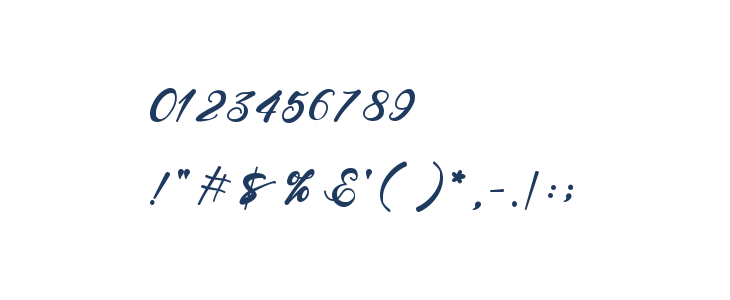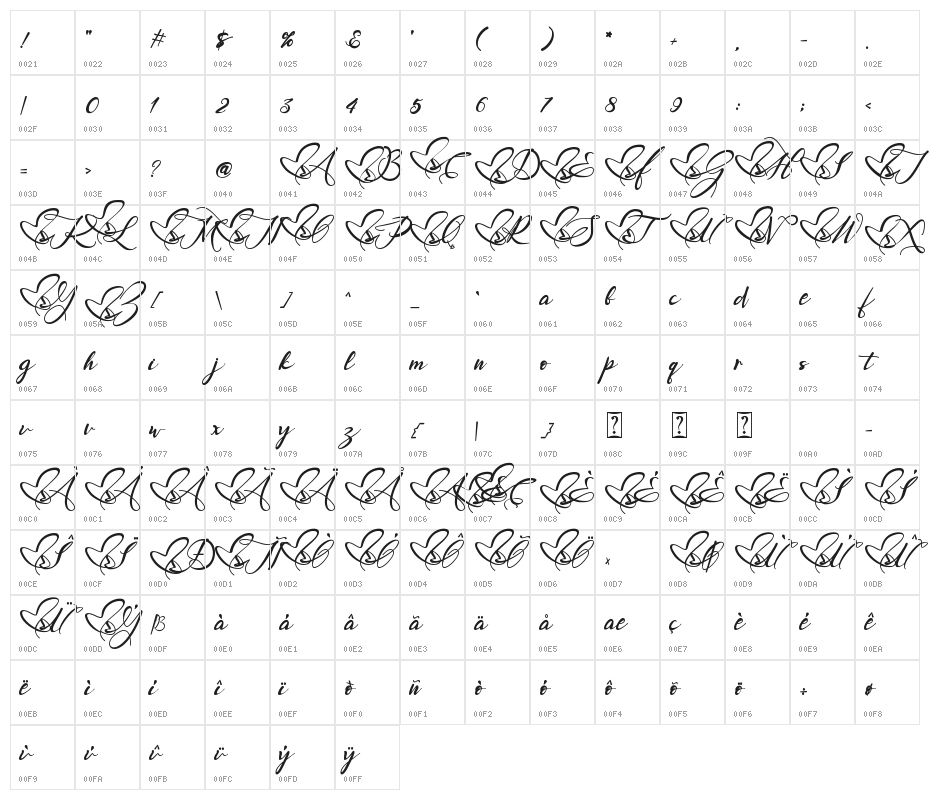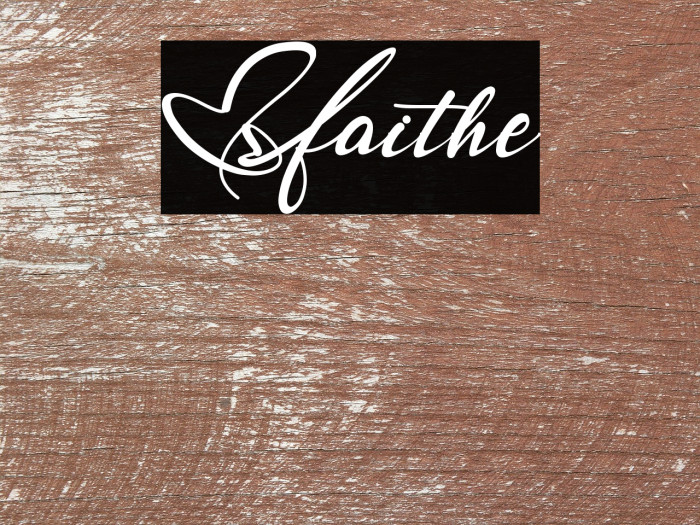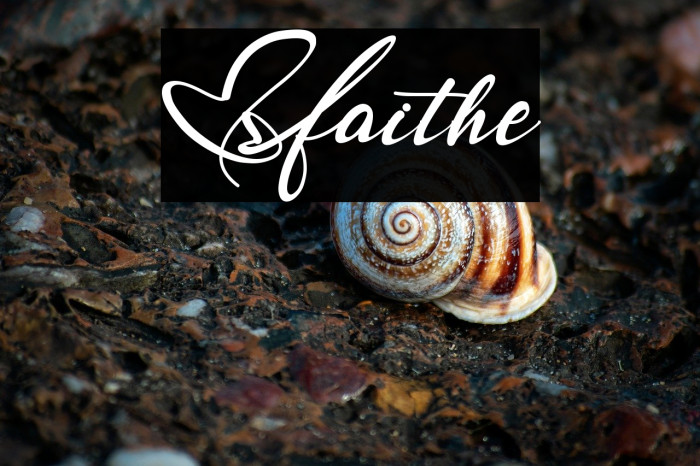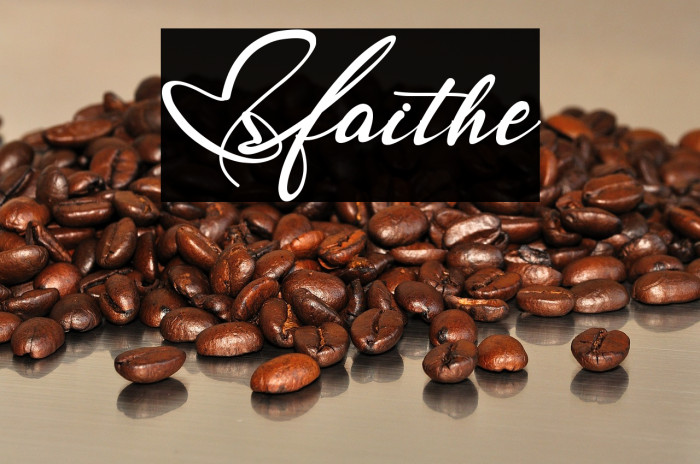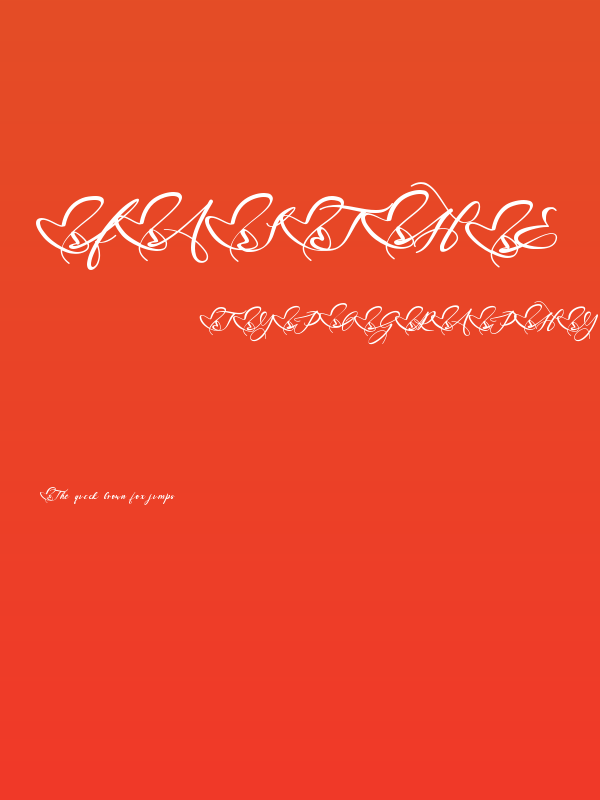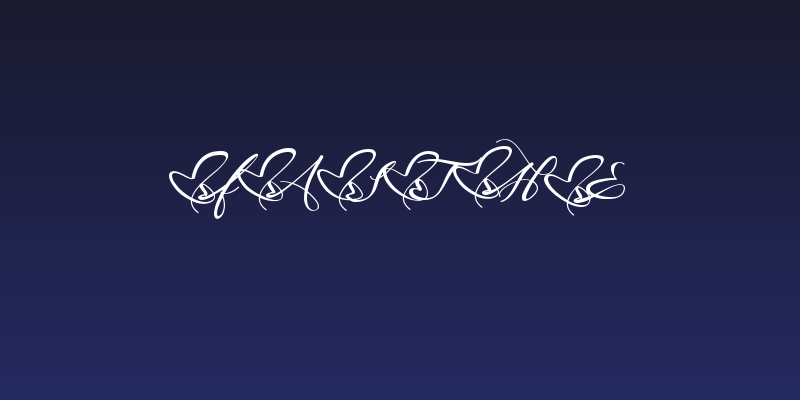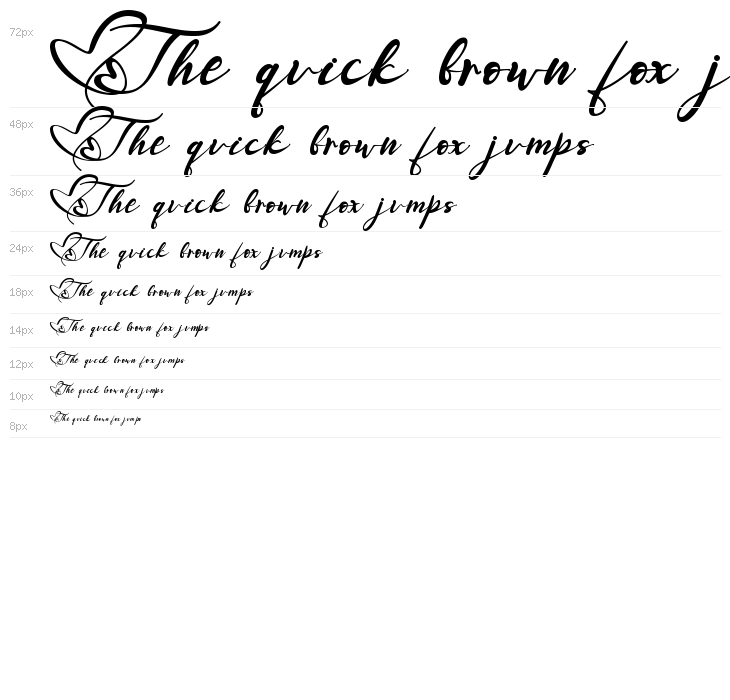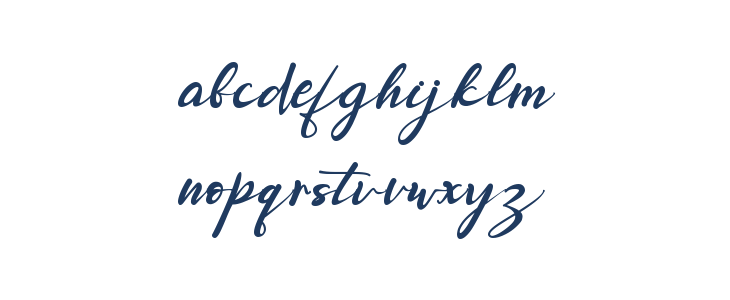
Faithe Font
Faithe Description
This font exudes elegance and sophistication with its flowing, cursive style. The characters are intricately designed, featuring smooth, sweeping curves and delicate loops that create a sense of fluidity and grace. The uppercase letters are particularly ornate, with elaborate flourishes that add a touch of drama and flair. The lowercase letters maintain a consistent style, with a slightly more restrained elegance that ensures readability. The numerals and special characters are crafted with the same attention to detail, seamlessly integrating with the overall aesthetic. This font is ideal for projects that require a touch of luxury and refinement, such as wedding invitations, high-end branding, or elegant packaging.
| Overall Style | Elegant, Decorative |
| Use Case | Logos, Invitations, Branding |
| Proposed Projects | Wedding invitations, luxury branding, elegant packaging, personal stationery. |